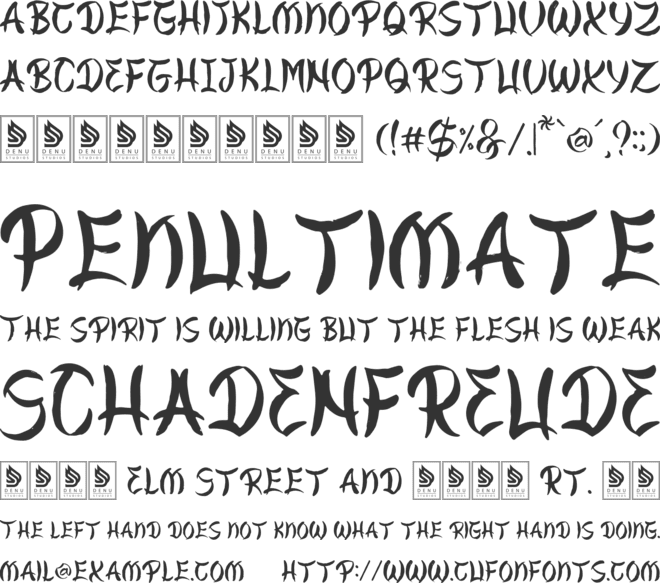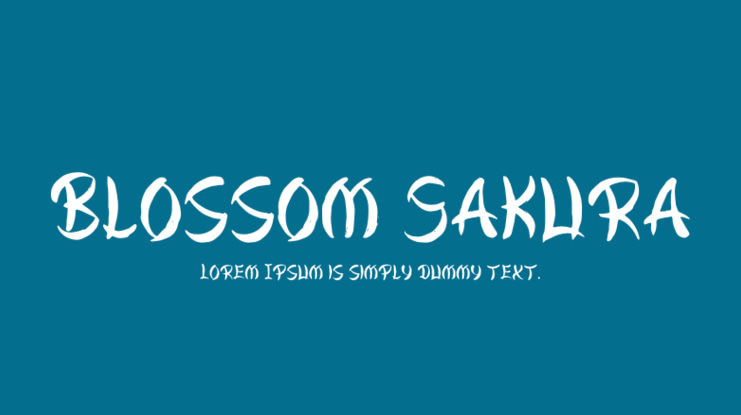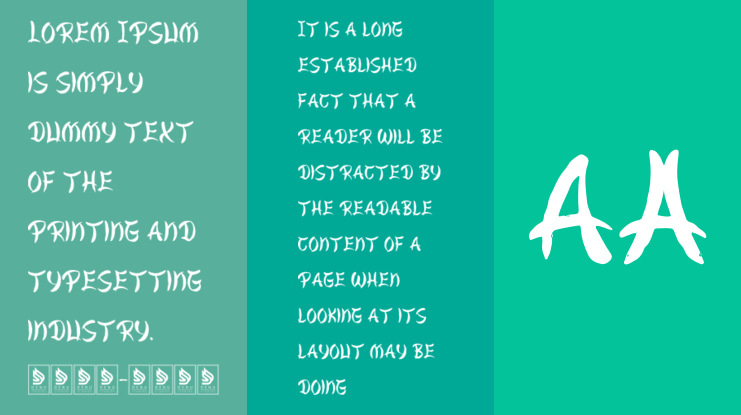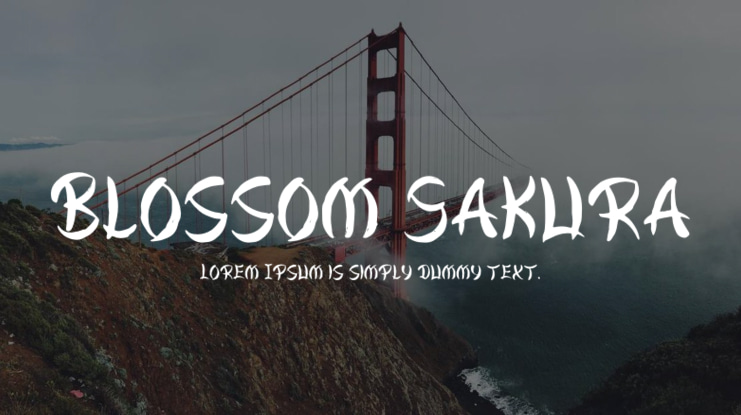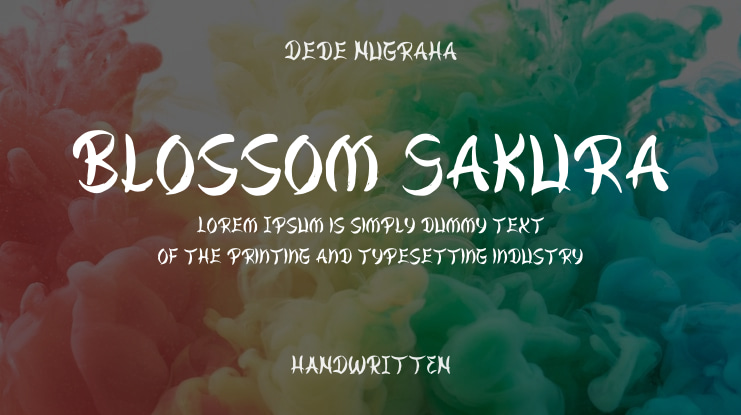
Blossom Sakura Font
Blossom Sakura | Japanese Brush is perfect for various projects, such as logos, branding, homeware designs, product packaging, mugs, quotes, posters, shopping bags, t-shirts, book covers, name cards, invitation cards, greeting cards, labels, photography, watermarks, special events, and any other lovely projects requiring a Japanese Brush feel.